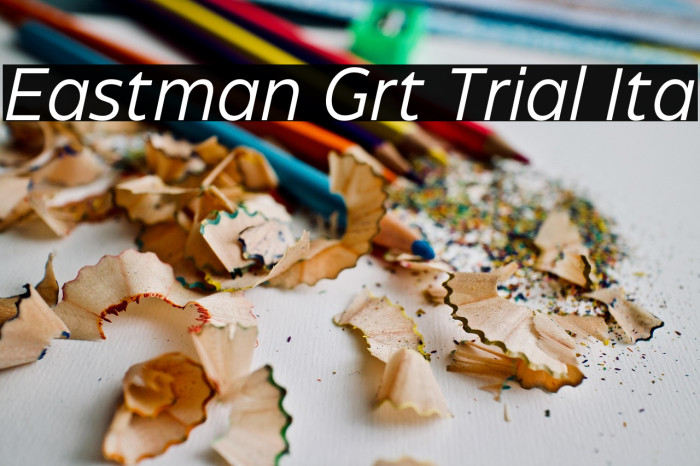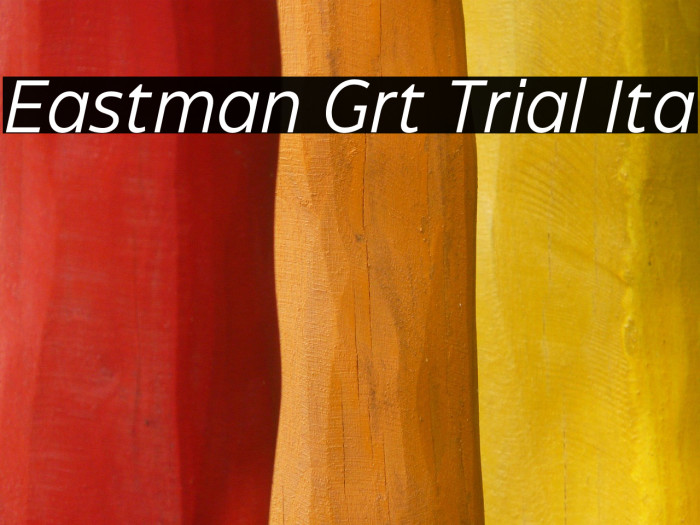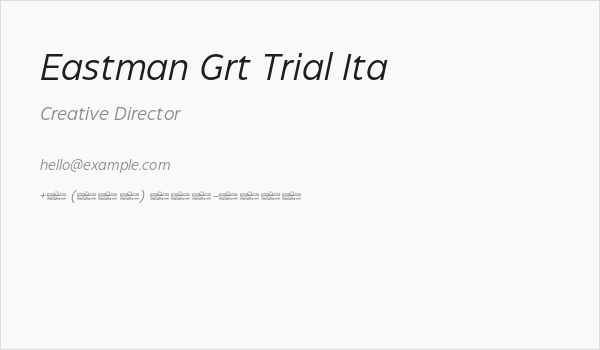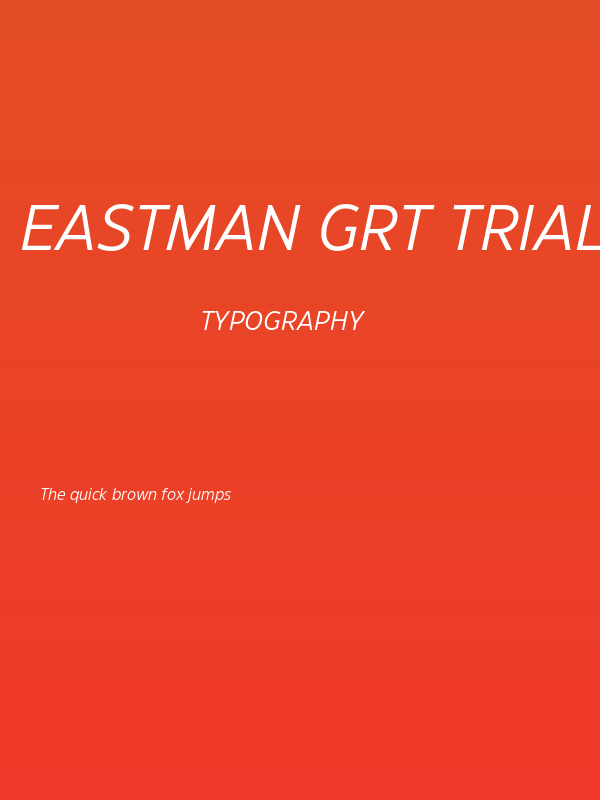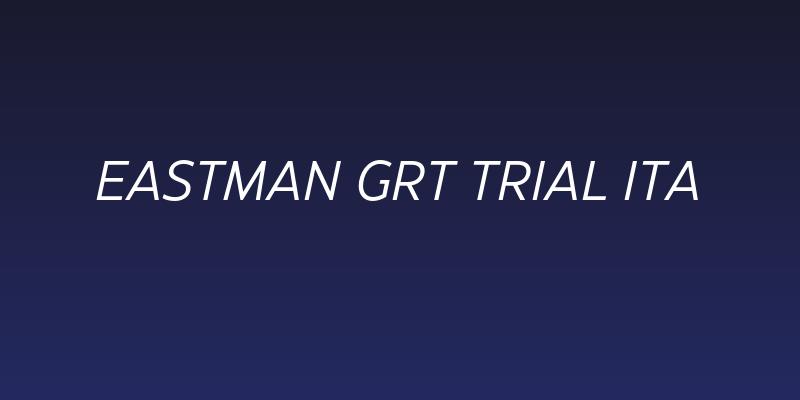
Eastman Grt Trial Ita Font
Eastman Grt Trial Ita Description
This font features a sleek and modern design with a slight italic slant, giving it a dynamic and forward-moving appearance. The characters are clean and well-defined, with a uniform stroke width that provides a sense of balance and harmony. The uppercase letters are bold and commanding, while the lowercase letters maintain a consistent style that complements the overall aesthetic. The numerals are clear and easy to read, making them suitable for various applications. Special characters are included, enhancing the font's versatility. The spacing between characters is normal, ensuring readability and a professional look.
| Proposed Projects | Ideal for branding, advertising, and editorial design projects that require a modern and professional touch. |